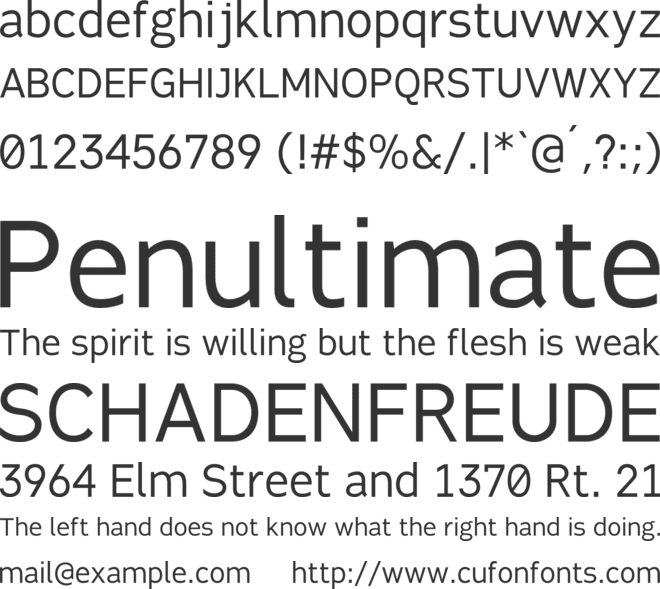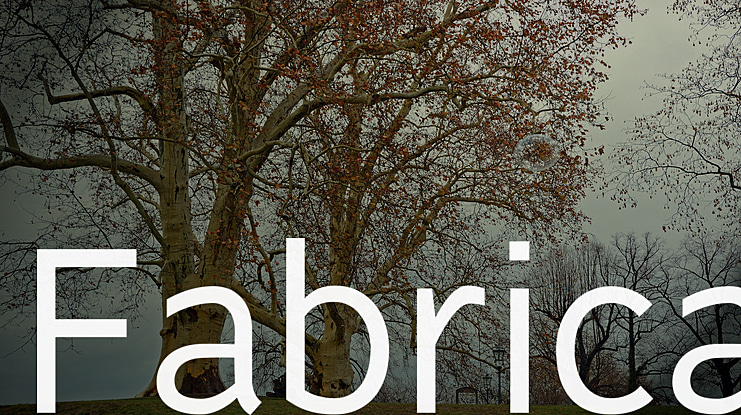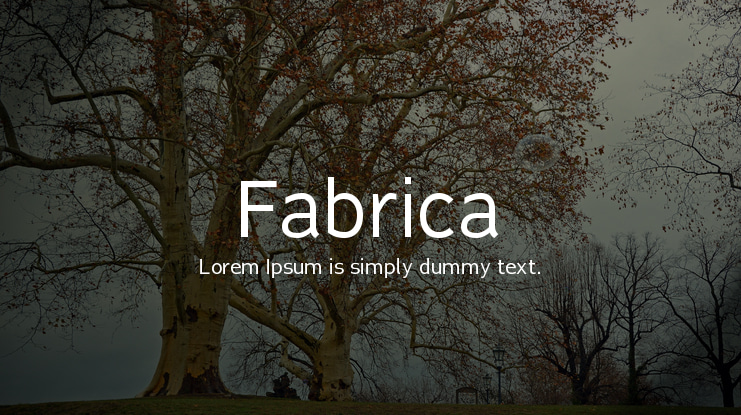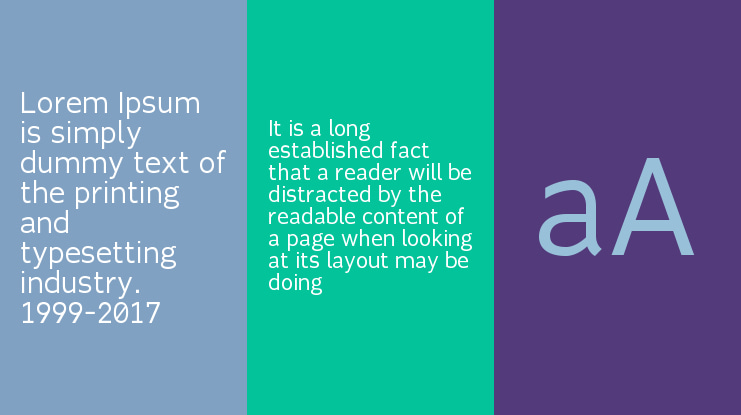
Fabrica Font
Research found that people read from their mobile screen more often than on paper nowadays. Through my own conducted survey and research, I created a set of typographic characteristics that guide me in designing the most legible typeface for mobile screen – Fabrica.
Fabrica is a deceptively simple sans serif typeface optimized for screen display on handheld devices. With its optimal quality and legibility, Fabrica proves to be highly efficient for small screens. Its details are drawn from the more systematic constructed Neo-Grotesques, giving it a neutral tone of voice. Above all, Fabrica's beauty is found in its functionality.
Although Fabrica was developed primarily for mobile screen, the typeface is suitable in any applications, large or small sizes